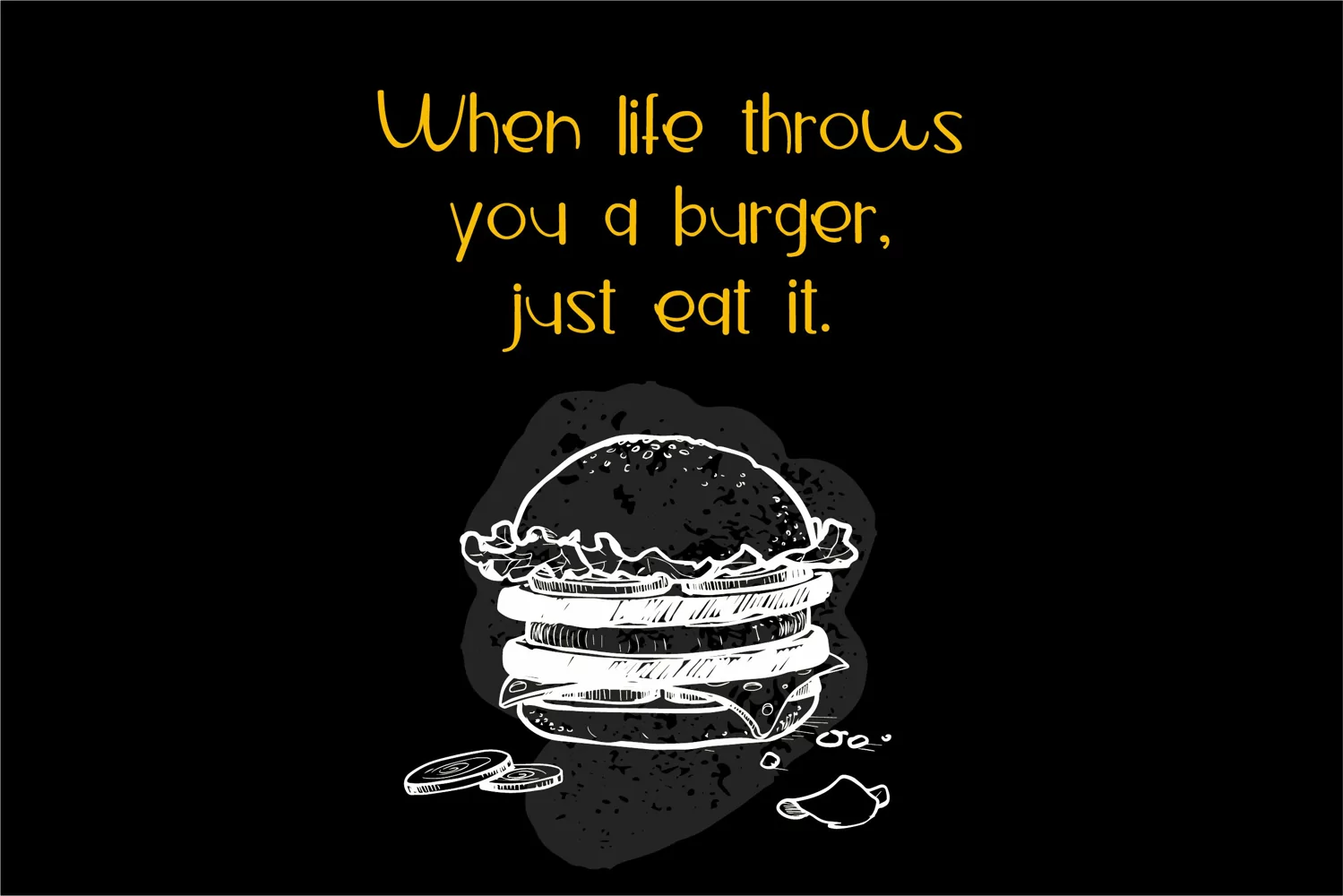
Butterbean is a cute, friendly and neat handwritten font. It looks as if it was the handwriting of a child, and as a result, this font will be the perfect choice for writing letters to Santa or adding a touch of innocence to your creations. Includes both regular and bold.